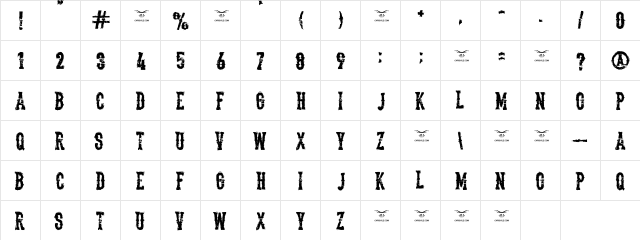
The Deadliest Saloon Regular
Design Context for The Deadliest Saloon Typeface
The Deadliest Saloon taps into classic Western woodtype traditions — bold, characterful, and impossible to ignore.
Perfect for barbecue restaurants, country music branding, vintage poster design, and rustic packaging.
Font Pairing: Combine The Deadliest Saloon with a simple slab or neutral sans — period-accurate companions reinforce the vintage feel without competing for attention.
Pro Tip: Pair The Deadliest Saloon with aged textures or distressed backgrounds to amplify its vintage personality.